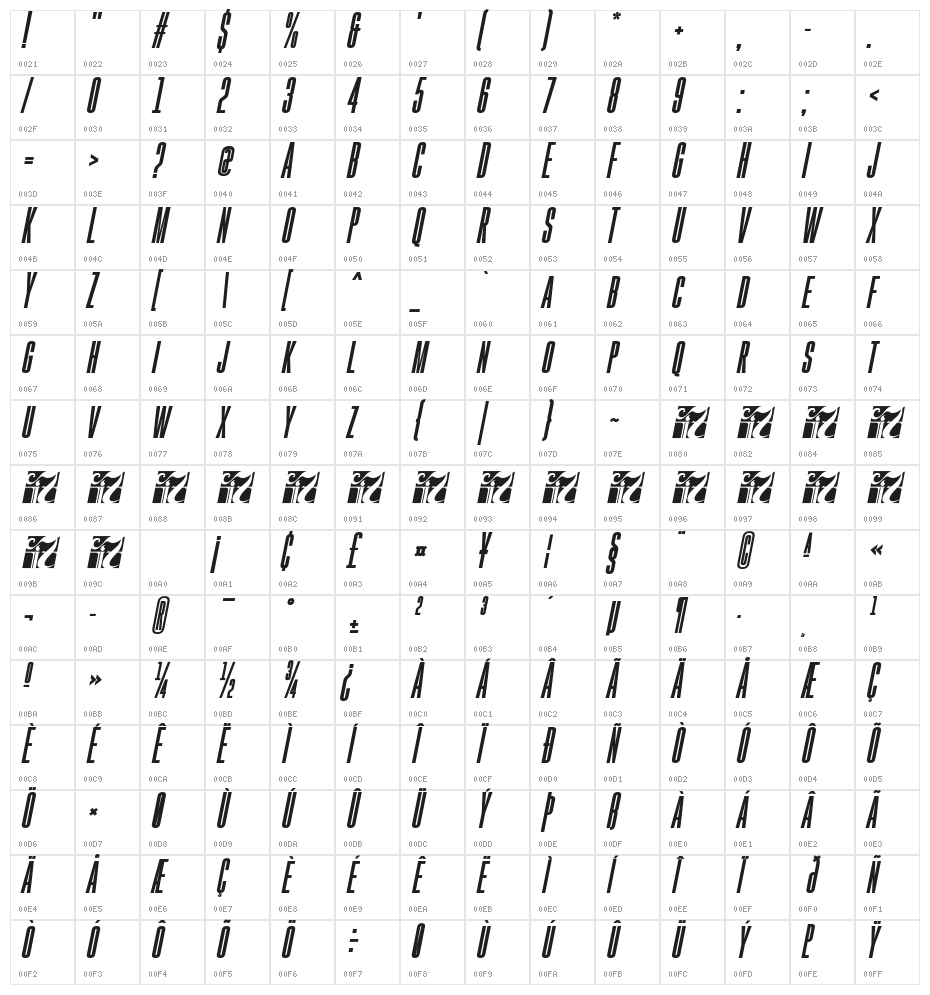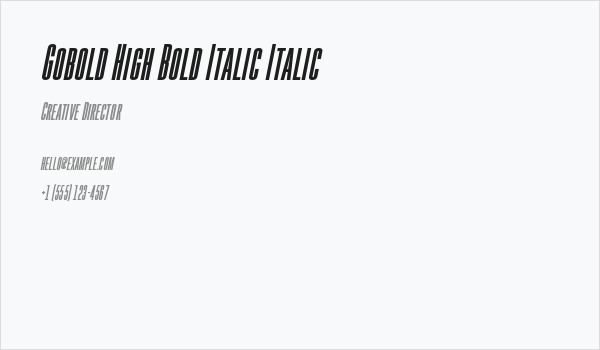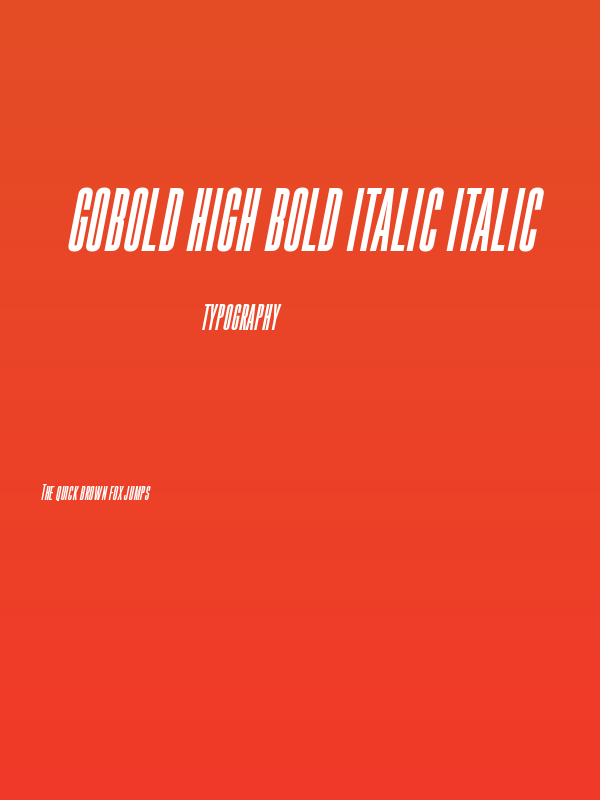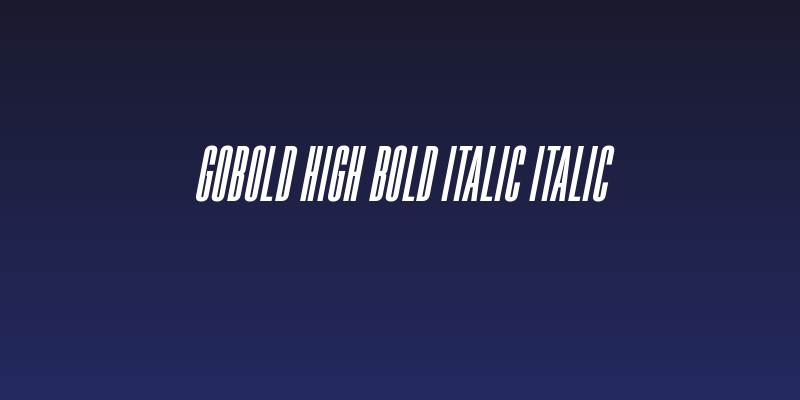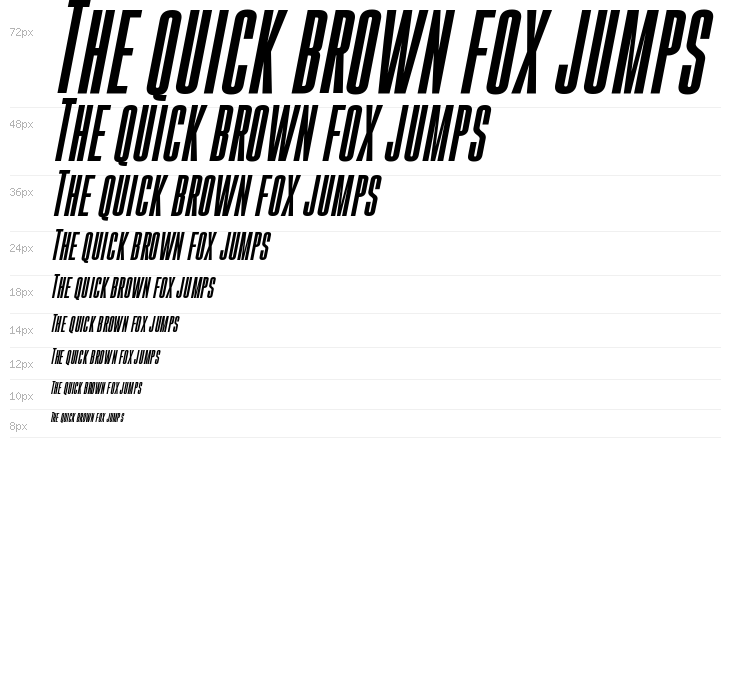
Gobold High Bold Italic Italic Font
Gobold High Bold Italic Italic Description
This font is a bold and dynamic typeface with a strong italic slant, giving it a sense of motion and urgency. The characters are tall and narrow, creating a condensed appearance that maximizes vertical space while maintaining readability. The strokes are thick and consistent, contributing to a bold presence on the page. The font's design is modern and sleek, making it suitable for contemporary applications. Its high contrast between thick and thin strokes adds to its striking visual impact. The character spacing is tight, which enhances the compact and energetic feel of the text.
| Proposed Projects | Ideal for sports branding, dynamic posters, modern advertisements, and eye-catching headlines. |